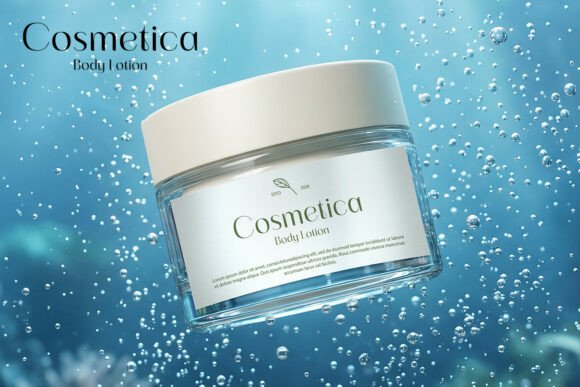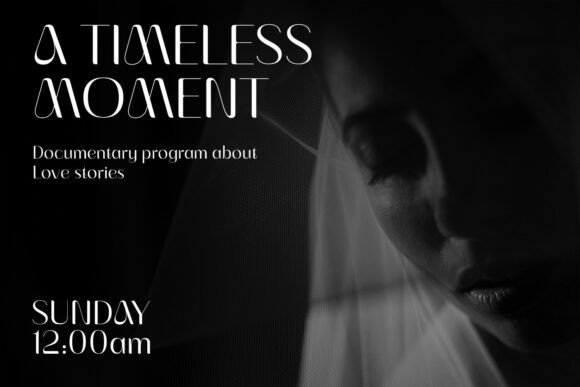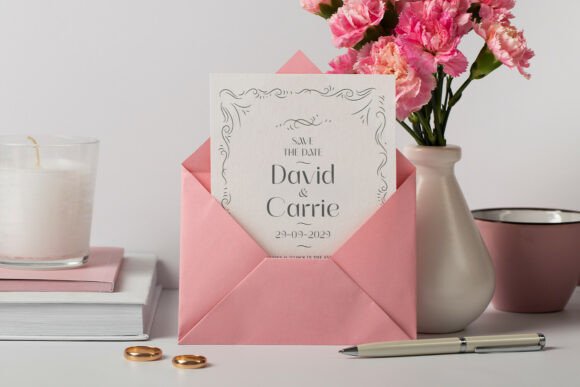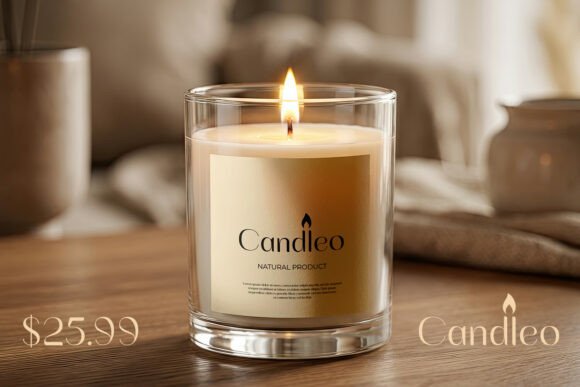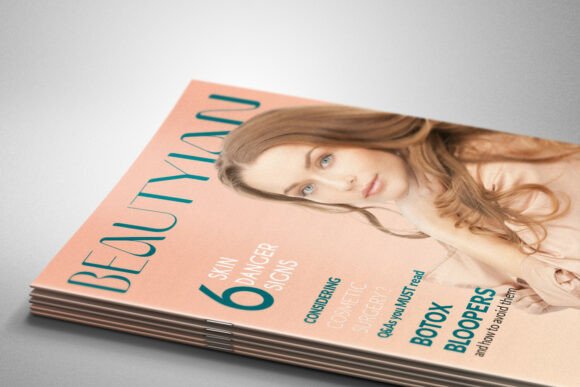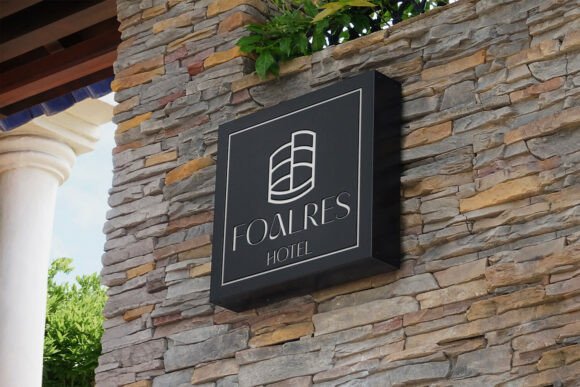
The Perfect Font for Making a Statement
Have you ever stared at a blank design canvas, eager to create something truly remarkable? You’re not alone. We’ve all been there – searching for that one font that will elevate our design from good to great. Meet Avendro, a bold and luxurious display serif typeface designed to command attention. This premium font is the ultimate powerhouse for high-end projects, perfect for designers looking to make a lasting impression.
| 📌 Product Name | Avendro Font |
| 👤 Author | OWPictures |
Avendro Font is meticulously crafted with striking high-contrast strokes and sharp geometric terminals, ensuring your design stands out with an uncompromising, authoritative aesthetic. Whether you’re designing packaging, corporate identities, or editorial headlines, Avendro is the perfect choice for anyone looking to add a touch of sophistication and elegance to their work.
With Avendro, you’ll be able to create designs that truly shine, and that’s what makes it so valuable for designers. It’s a game-changer for anyone looking to take their designs to the next level.
Avendro Font Key Features
- Font Family: Avendro Font is a sans-serif font family with multiple weights and styles, making it suitable for various design applications.
- Size: The font family consists of 10 weights, ranging from Thin (100) to Black (900), providing flexibility for designers to choose the perfect weight for their project.
- Resolution: Designed to work well at high resolutions, making it ideal for digital applications, including web design, mobile apps, and print materials.
- Unique Characteristics: Avendro Font features a unique geometric shape, with clean lines and a modern aesthetic, setting it apart from other sans-serif fonts.
- Language Support: Supports a wide range of languages, including Latin, Cyrillic, and Greek scripts, making it a versatile choice for international design projects.
Review of Avendro Font
As a designer, I was excited to dive into the world of Avendro Font, a modern sans-serif typeface that promises to deliver a sleek and sophisticated look to any design project. ✨
Here are some things that I really like about Avendro Font:
- ✨ Clean and minimalist design that makes it perfect for digital interfaces and branding materials.
- ✨ Highly legible and clear, making it an excellent choice for body text and headings.
- ✨ Large character set, supporting multiple languages and scripts, making it a great option for global projects.
However, I also encountered some limitations that I think are worth mentioning:
- ⚠️ Limited expressiveness, which might make it less suitable for projects that require a strong emotional connection.
- ⚠️ Some users may find it too uniform and lacking in personality, especially when used for creative projects.
Overall, I think Avendro Font is a solid choice for designers who prioritize simplicity and legibility. While it may not be the most exciting or expressive typeface, it gets the job done and delivers a professional look that’s hard to beat.
Tips: Use Avendro Font for headings and titles to add a touch of elegance to your design.
Tips: Use Avendro Font for creative projects, such as typography-based art or graphics.
Tips: Use Avendro Font for presentations, reports, or documents that require a professional touch.
Avendro Font is ideal for:
1. Creative projects, such as typography-based art or graphics.
2. Presentations, reports, or documents that require a professional touch.
3. Headings and titles to add a touch of elegance to your design.
Comparison: Playfair Display has a more elegant and refined feel compared to Avendro Font, which has a more modern and sleek look.